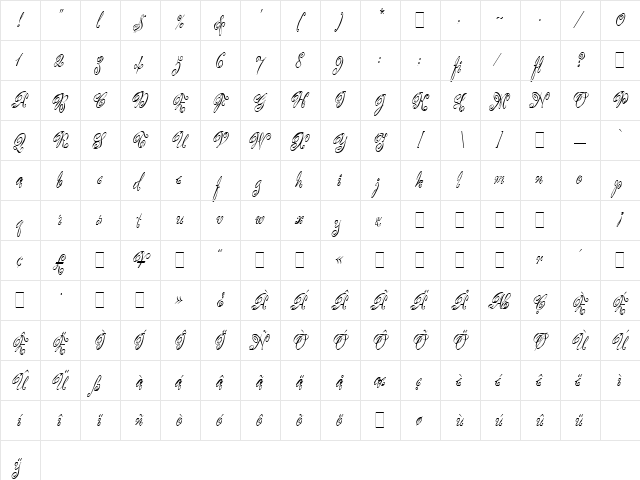
Scriptease LET Plain
Design Context for Scriptease LET Typeface
Scriptease LET brings a calligraphic fluidity to the page — its connecting strokes and expressive curves give it an unmistakably human quality.
Font Pairing: Combine Scriptease LET with a simple geometric sans for maximum contrast — the tension between flowing curves and clean structure is a classic typographic pairing.
Pro Tip: Use Scriptease LET for short runs of text — names, titles, or taglines. Extended body copy in script faces tires the eye quickly.